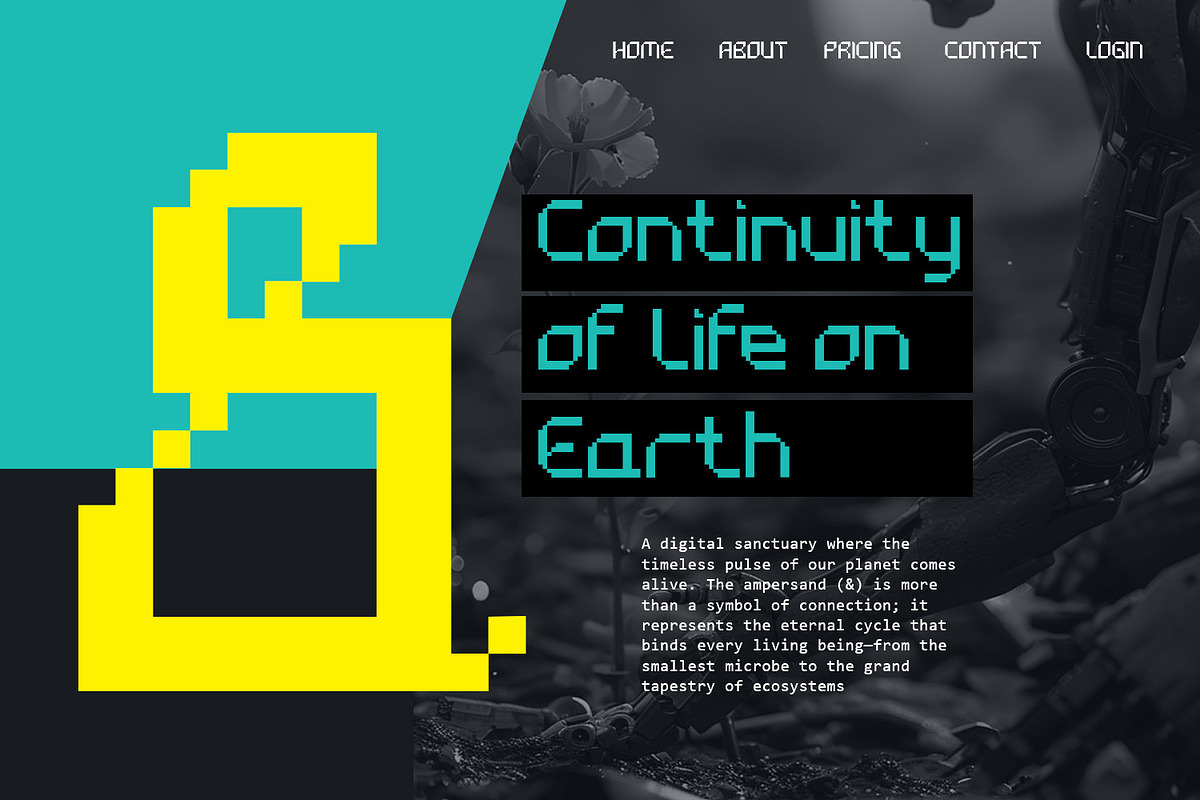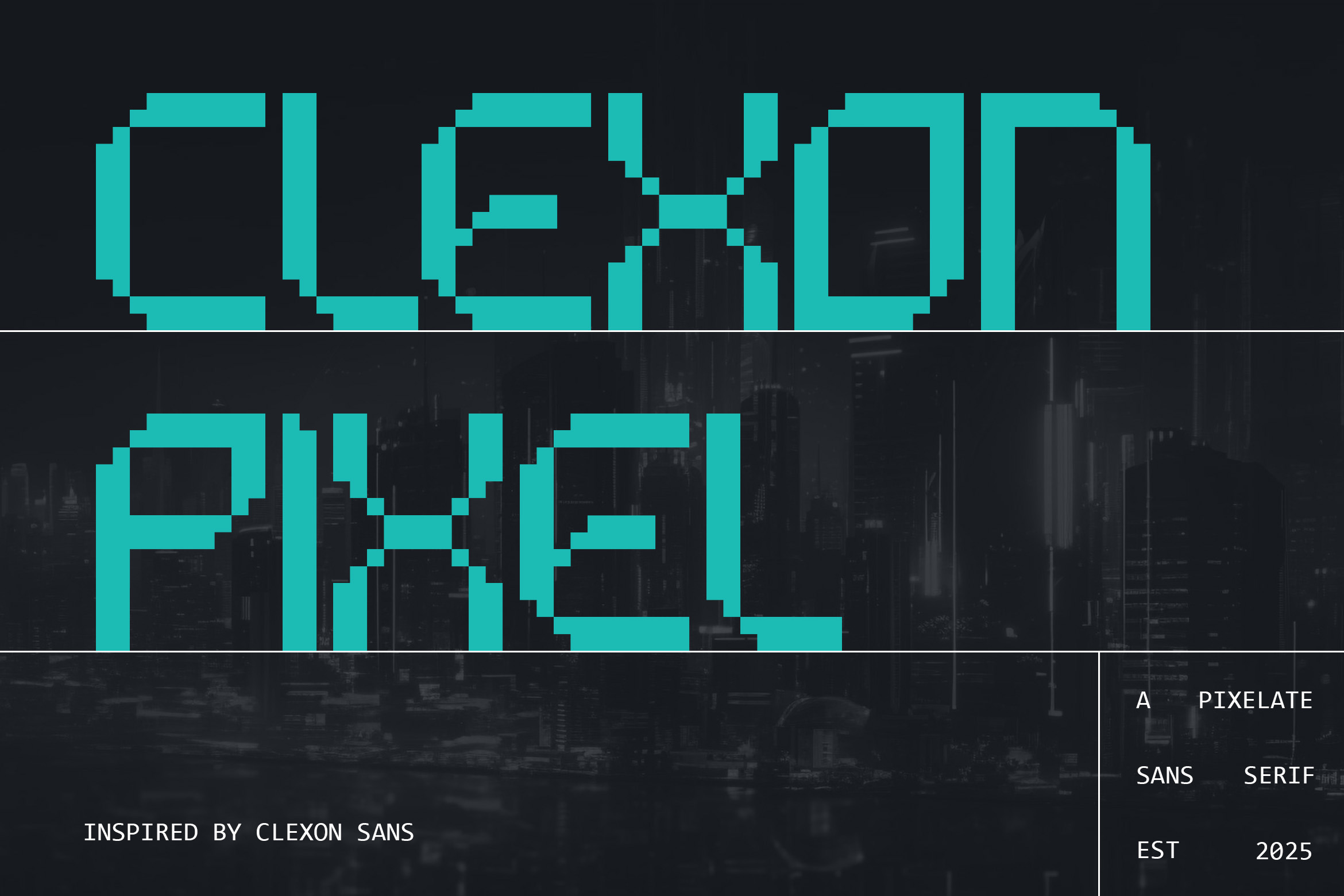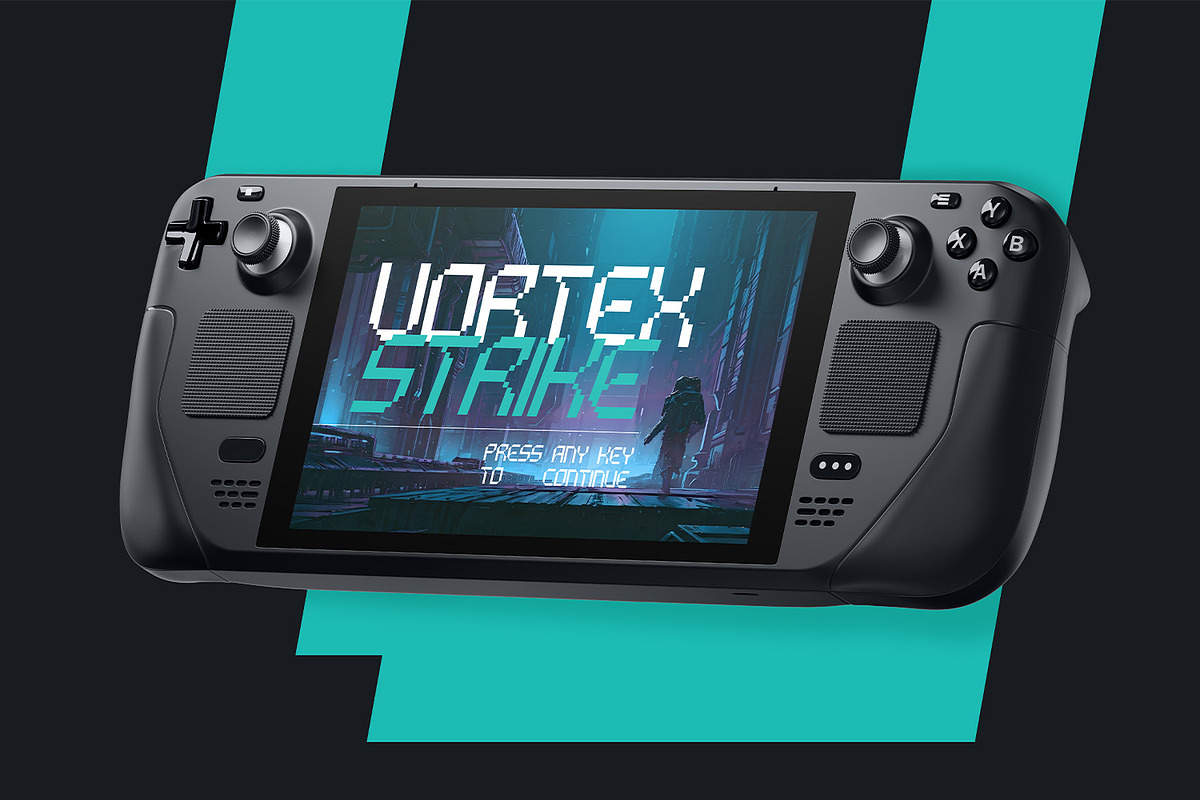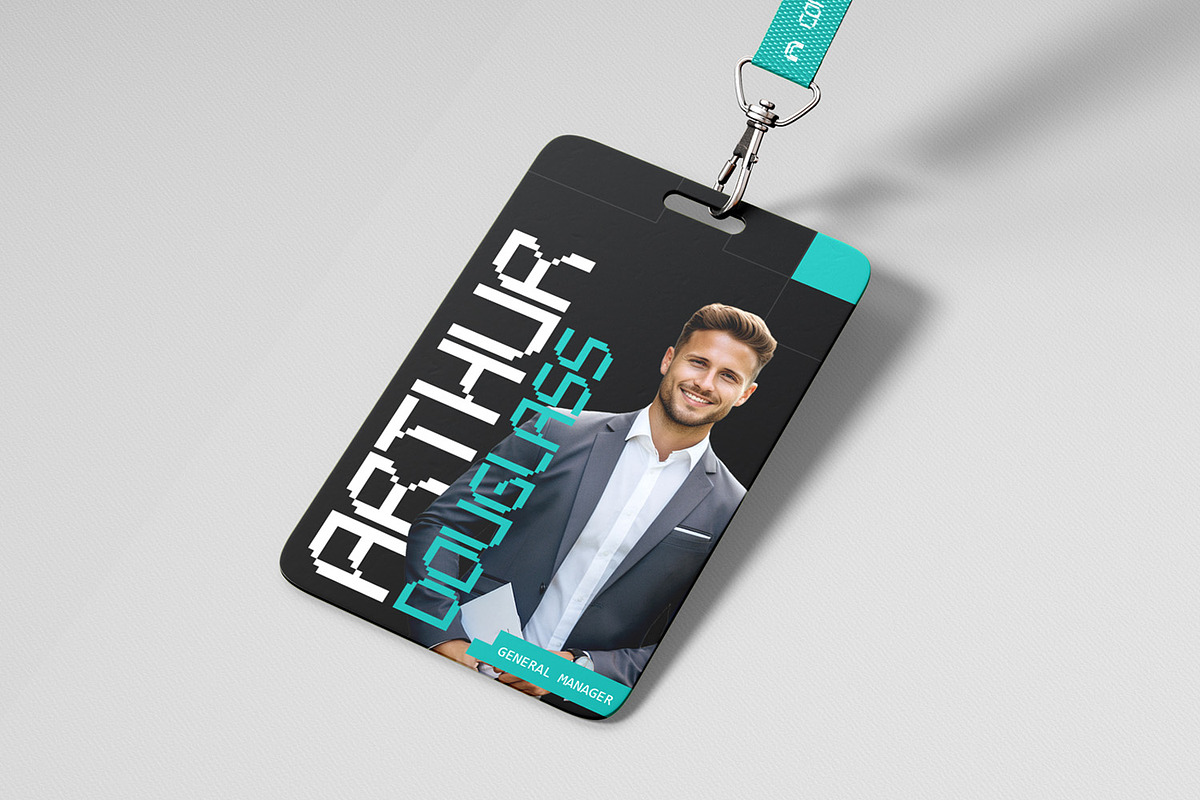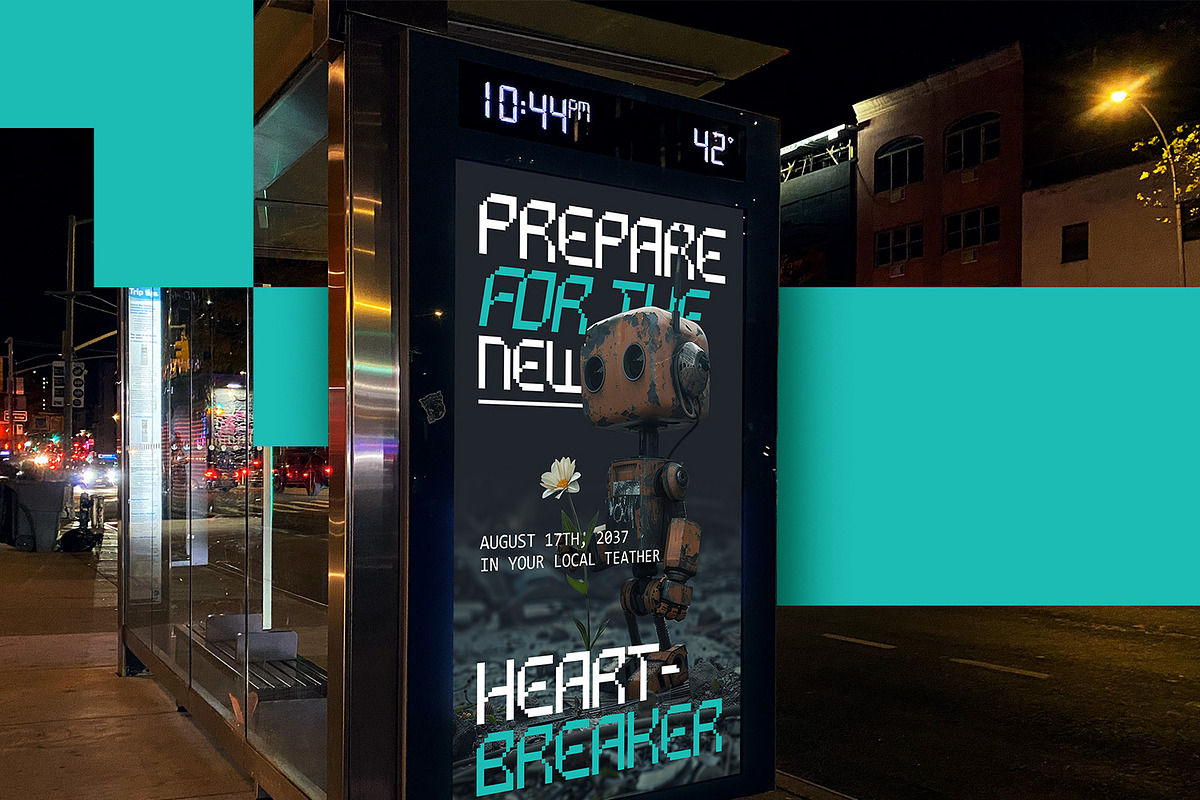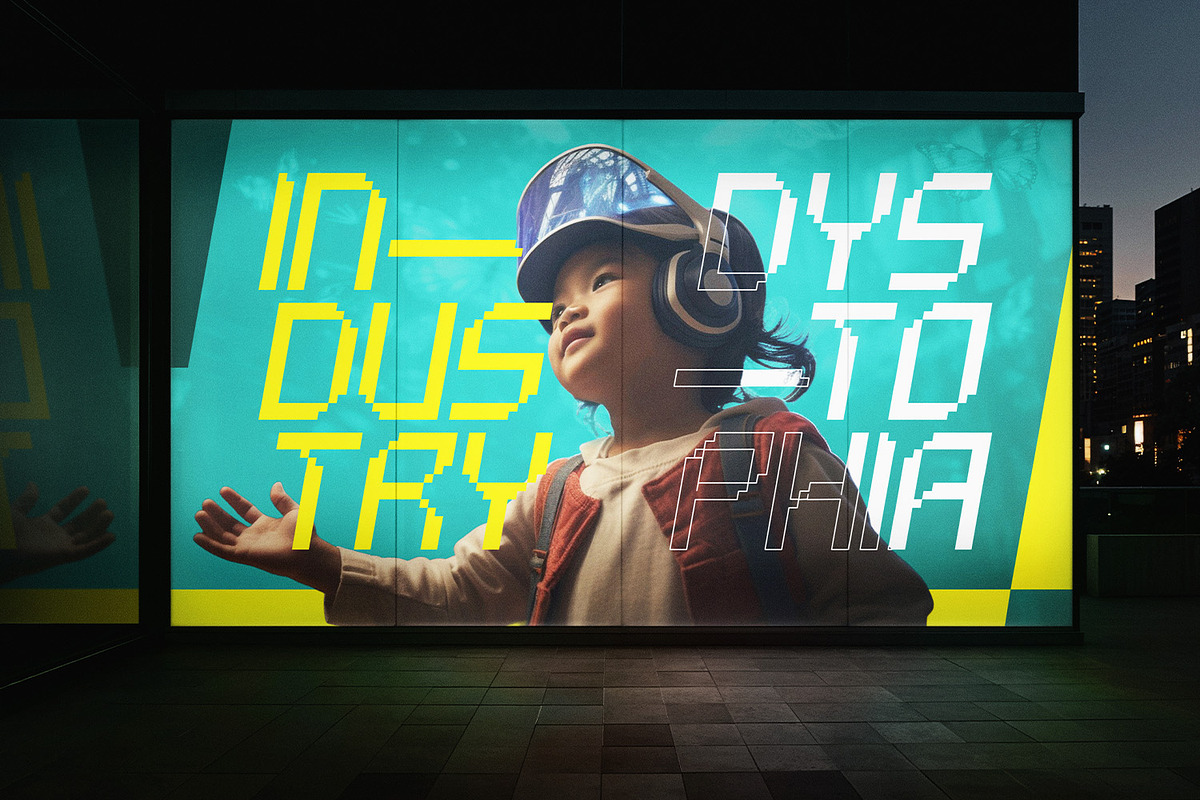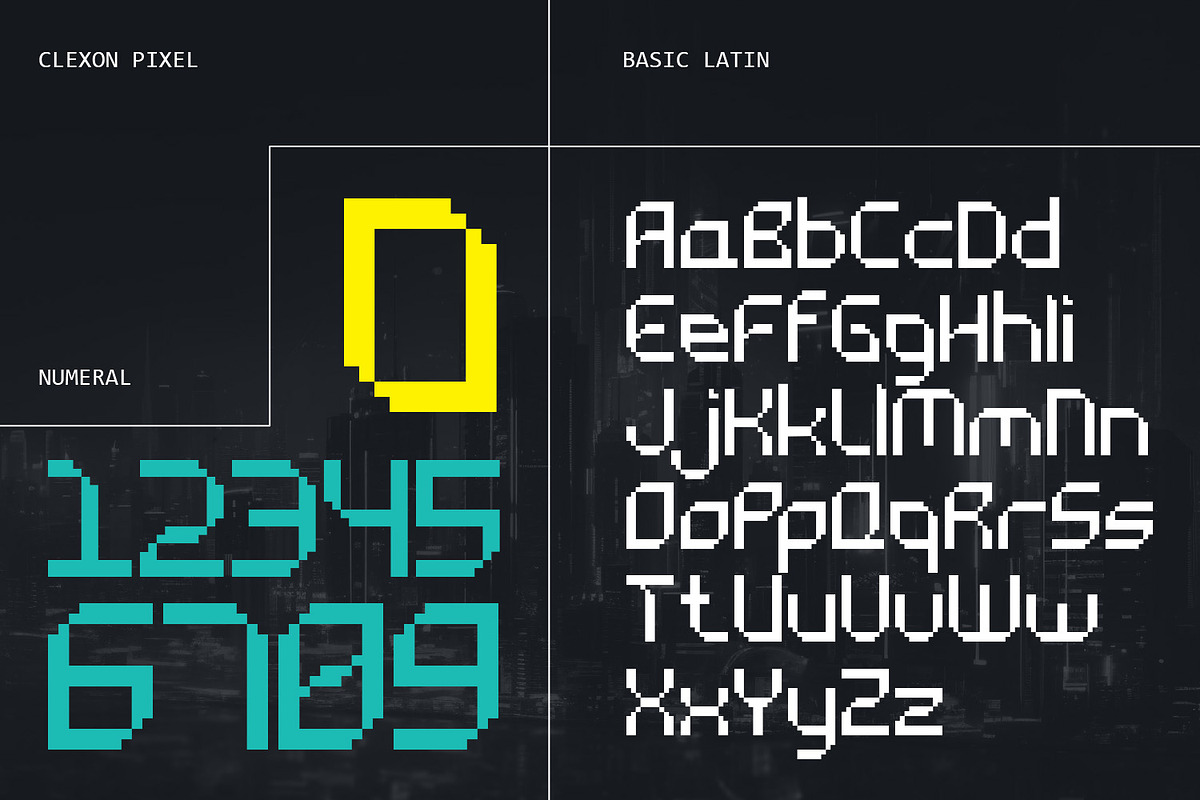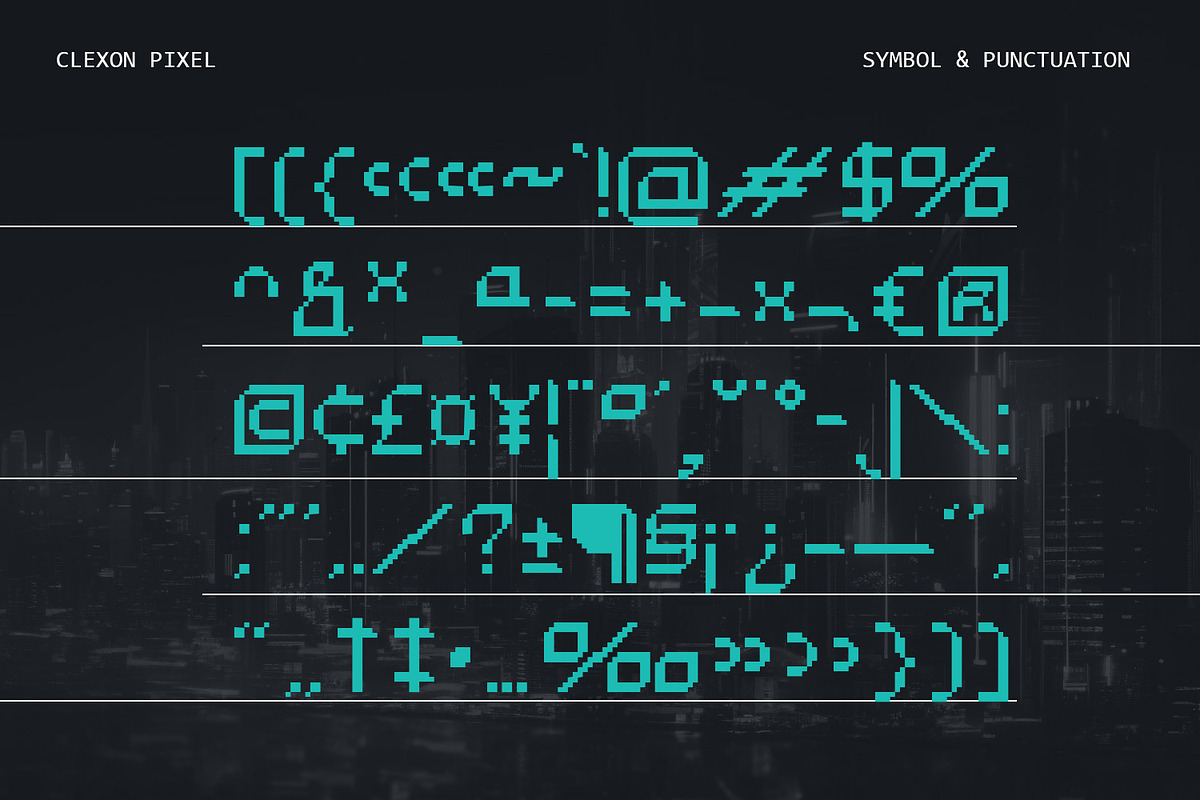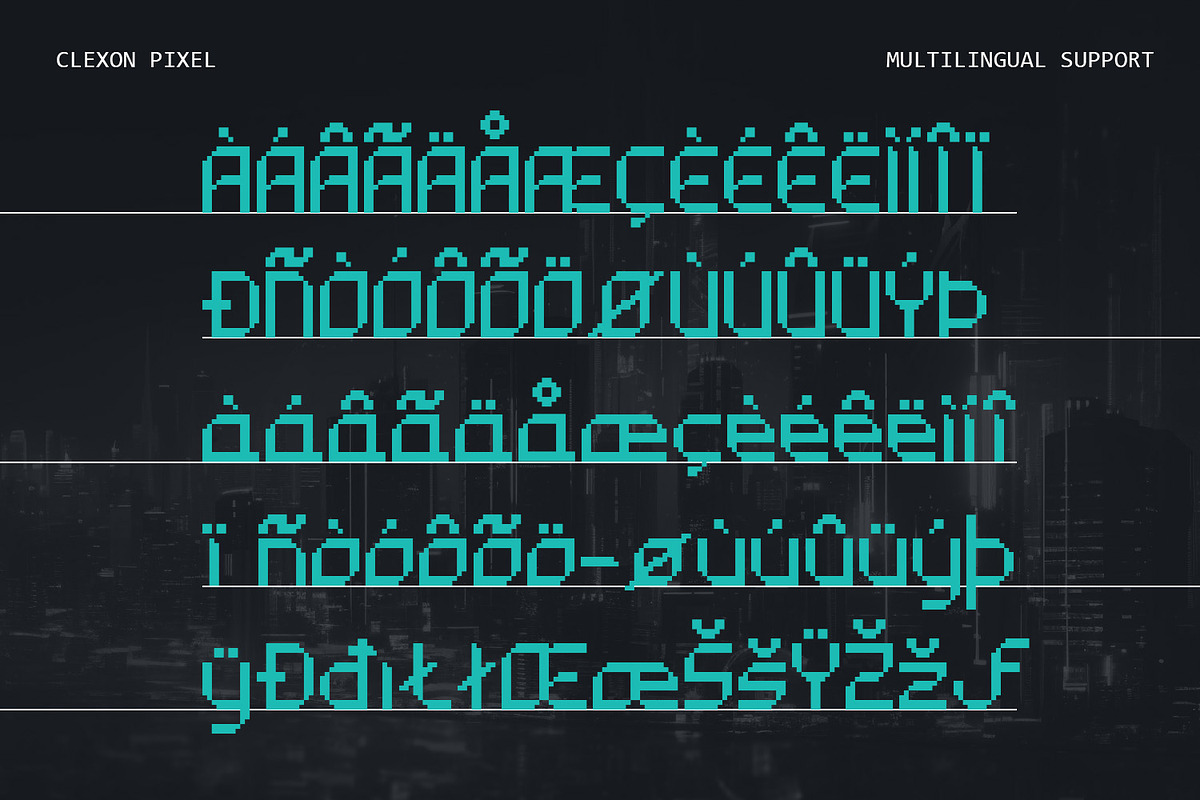
Clexon Pixel - Geometric 8Bit Font
Clexon Pixel is a bold and precisely structured pixel typeface that merges retro gaming aesthetics with modern digital sharpness. With its uniform blocky grid, it delivers a sense of clarity and strength, making it perfect for eye-catching titles, arcade-style visuals, and futuristic design projects. The font’s pixelated structure ensures a nostalgic yet contemporary feel, bridging the past and the future with effortless style.
Designed for versatility, Clexon Pixel maintains sharp readability across screens, enhancing digital interfaces, branding, and creative compositions. Whether used in minimalist layouts or vibrant, high-impact graphics, its geometric precision and nostalgic flair make it an essential asset for those seeking a bold yet structured pixel font.
- Standard letter A-Z and a-z
- Numeral, Symbol, and Punctuations